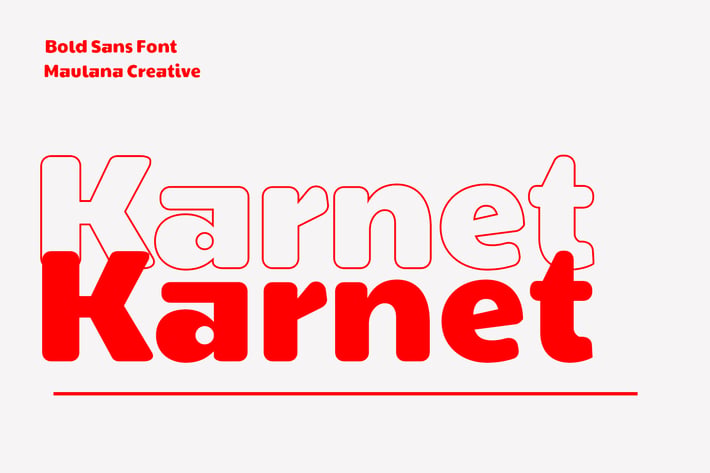
Karnet Sans Font
Karnet is a unique sans serif font. Bold stroke, fun character with a bit of ligatures and alternates. To give you an extra creative work. Karnet font support multilingual more than 100+ language. This font is good for logo design, Social media, Movie Titles, Books Titles, a short text even a long text letter and good for your secondary text font with script or serif. Make a stunning work with Karnet font.